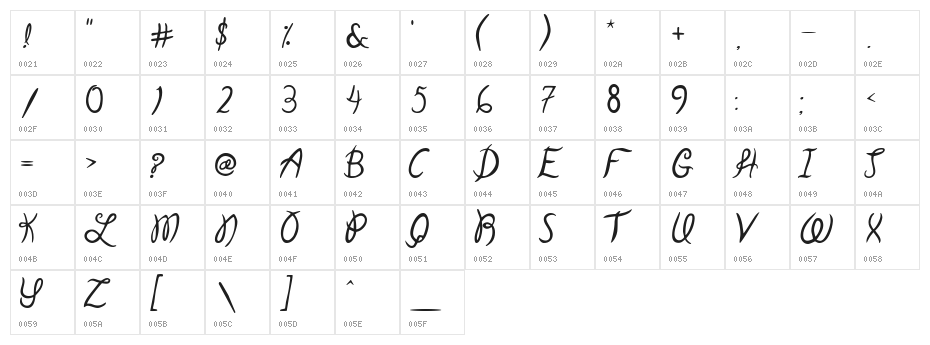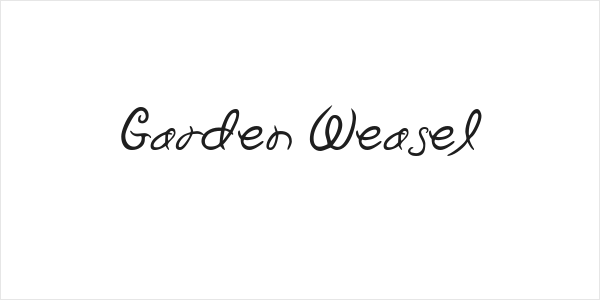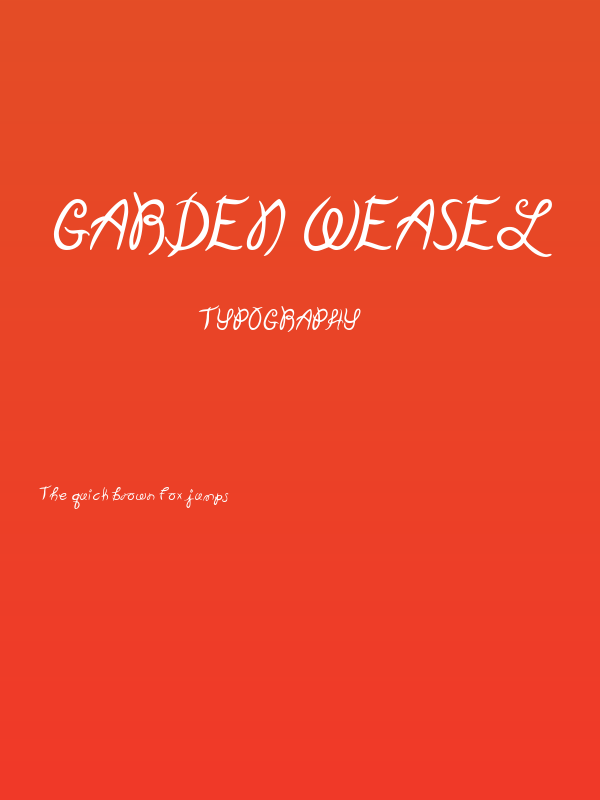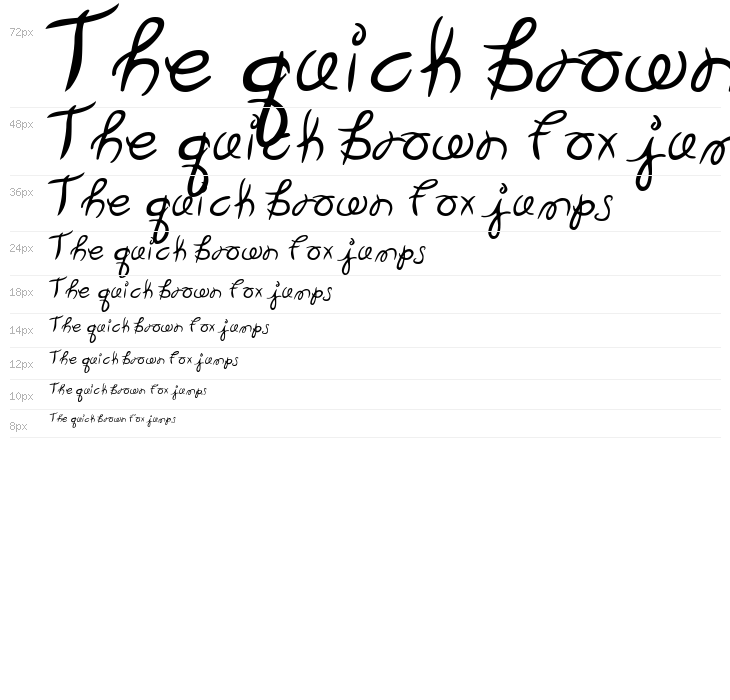
Garden Weasel Font
Garden Weasel Description
This font features a lively and dynamic script style, characterized by its fluid and cursive letterforms. The uppercase letters exhibit a playful and whimsical flair, with strokes that often loop and intertwine, creating a sense of movement and energy. The lowercase letters maintain this fluidity, with a slightly more restrained design that ensures readability while retaining the overall expressive nature. The numerals are consistent with the script style, offering a cohesive look across all characters. Special characters are thoughtfully integrated, maintaining the font's unique personality. This font's design is ideal for projects that require a touch of elegance and creativity.